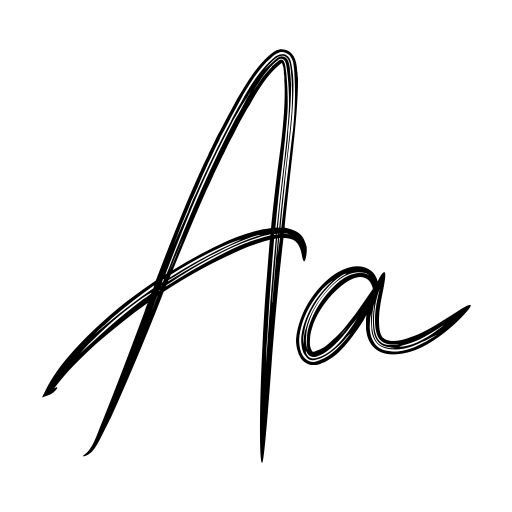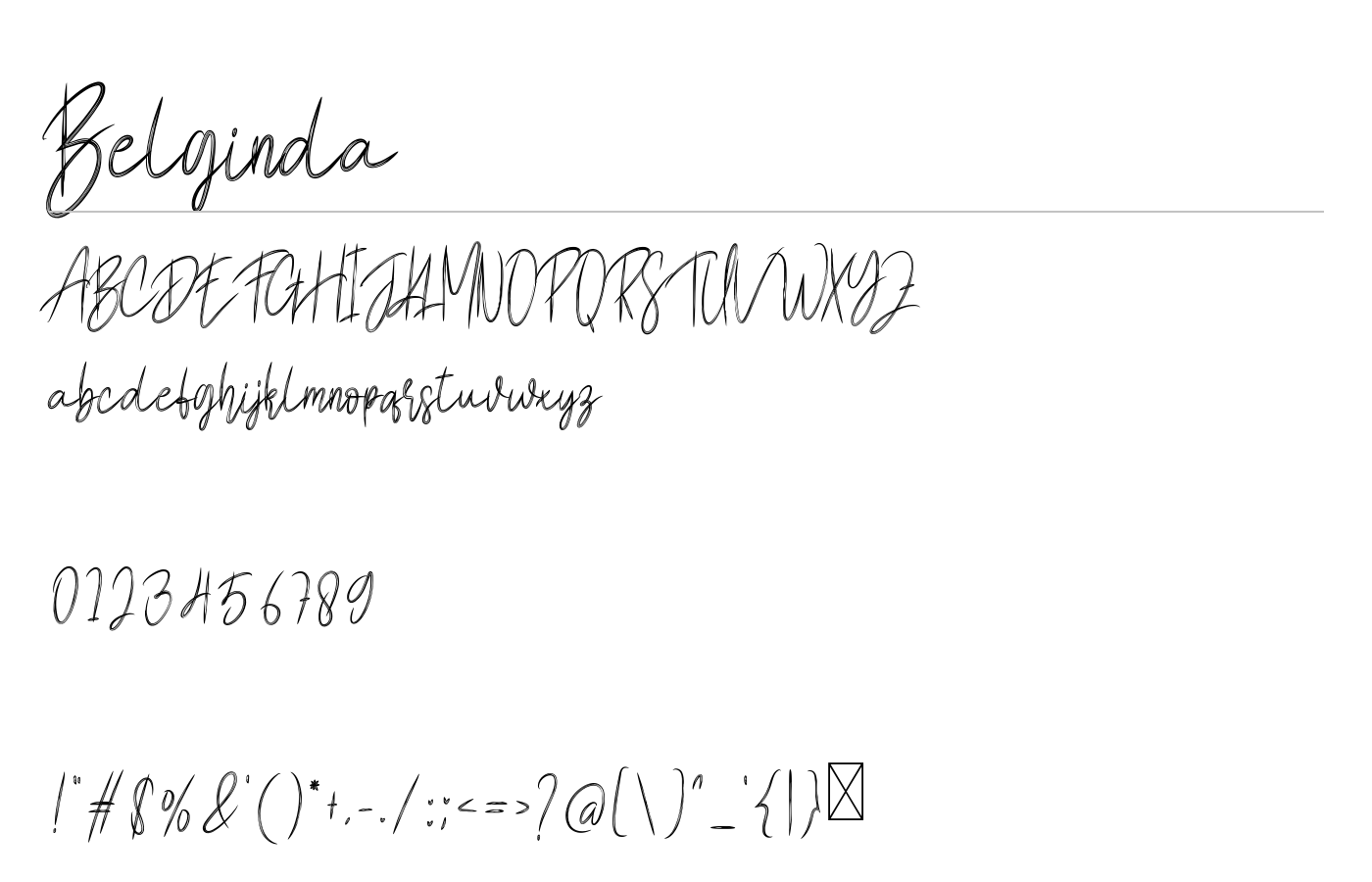
Belginda is a delicate, hand-drawn script font with a narrow, elegant style that mimics natural handwriting with a whimsical and personal touch. Its thin, flowing strokes and tall letterforms make it ideal for creative branding, invitations, and stationery where a graceful yet informal look is desired. This font works best in headlines and logos that aim to evoke sophistication and approachable charm.
Belginda Font
About Belginda Font